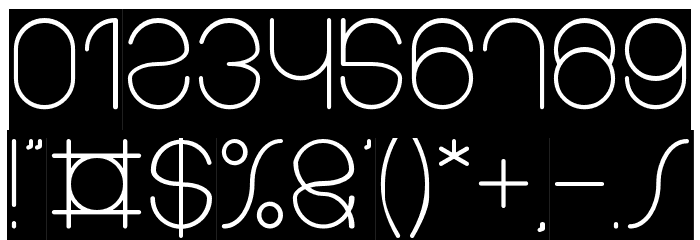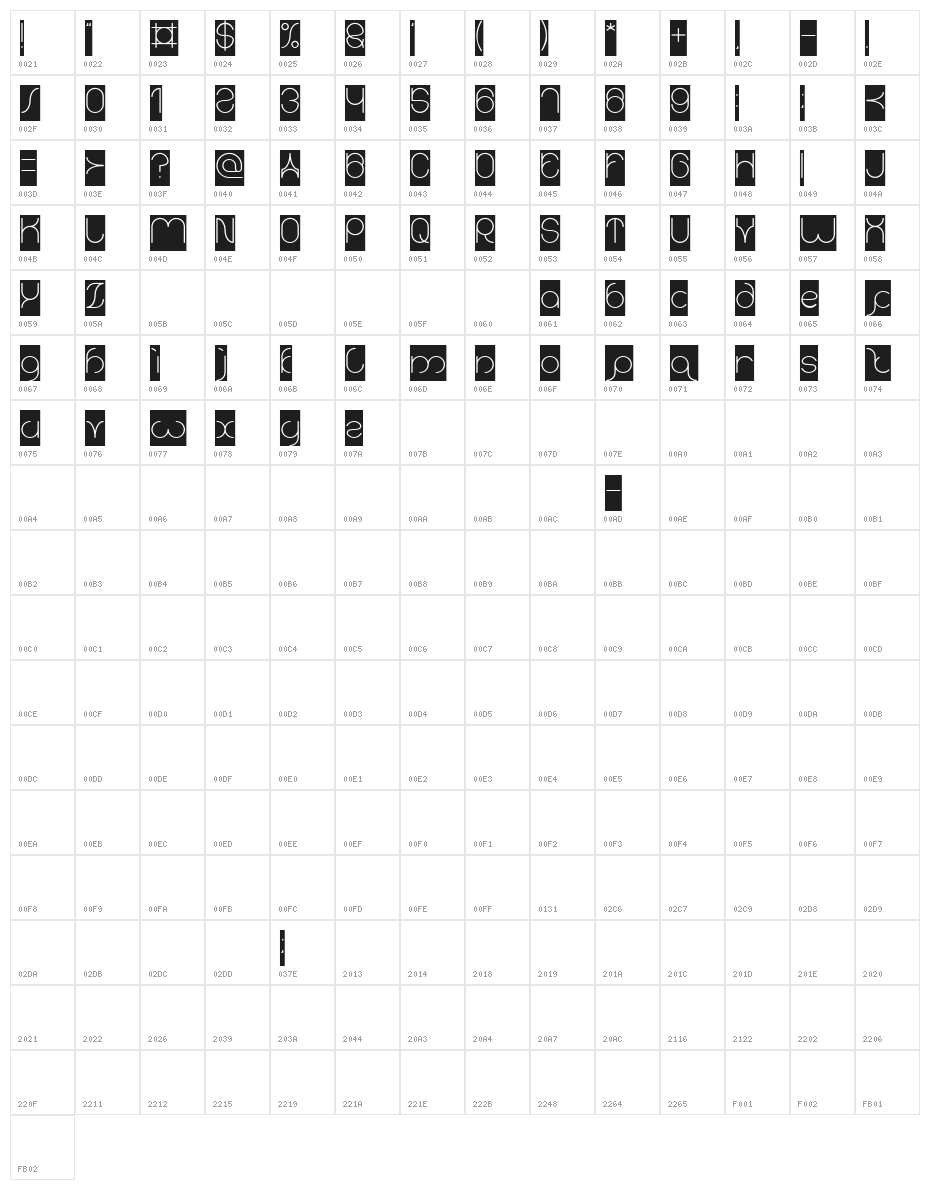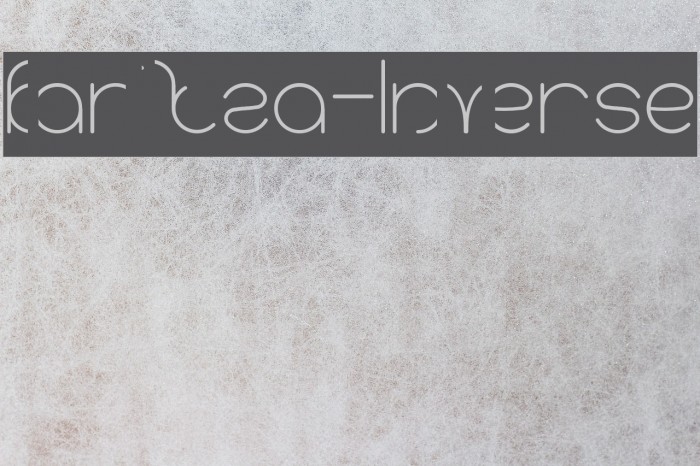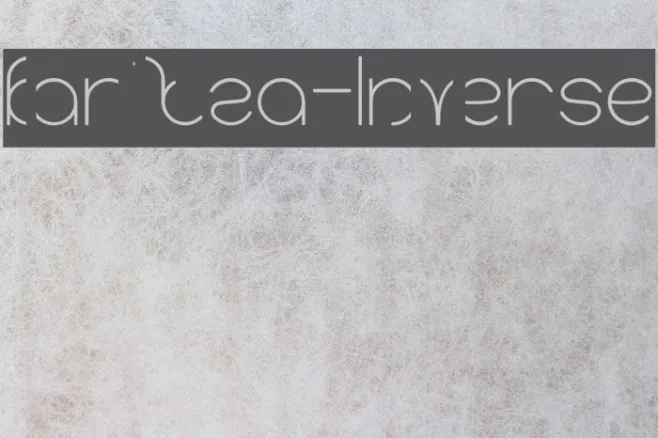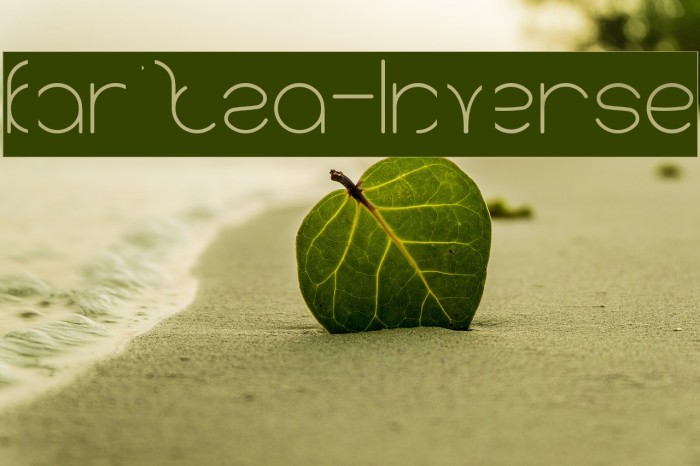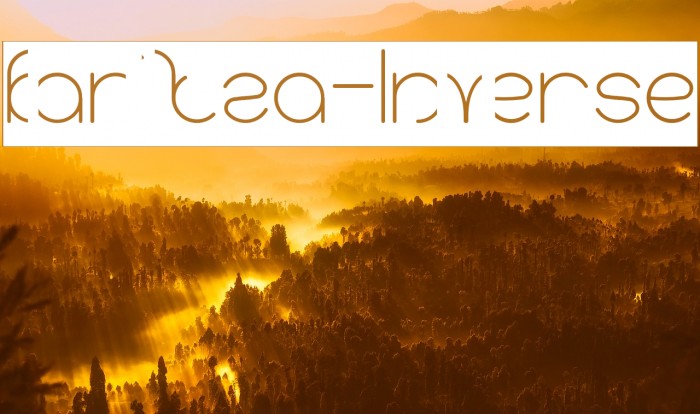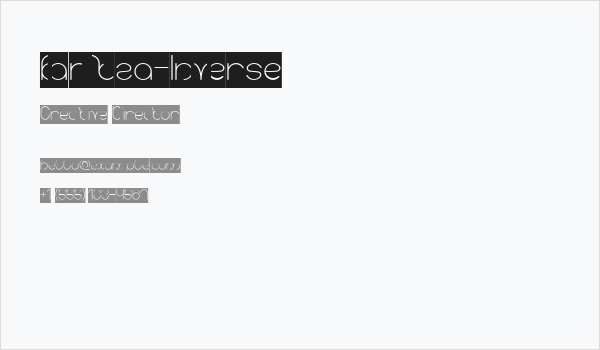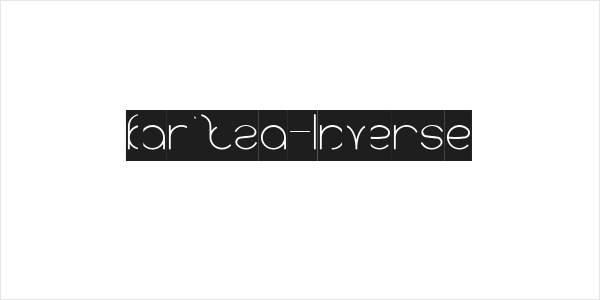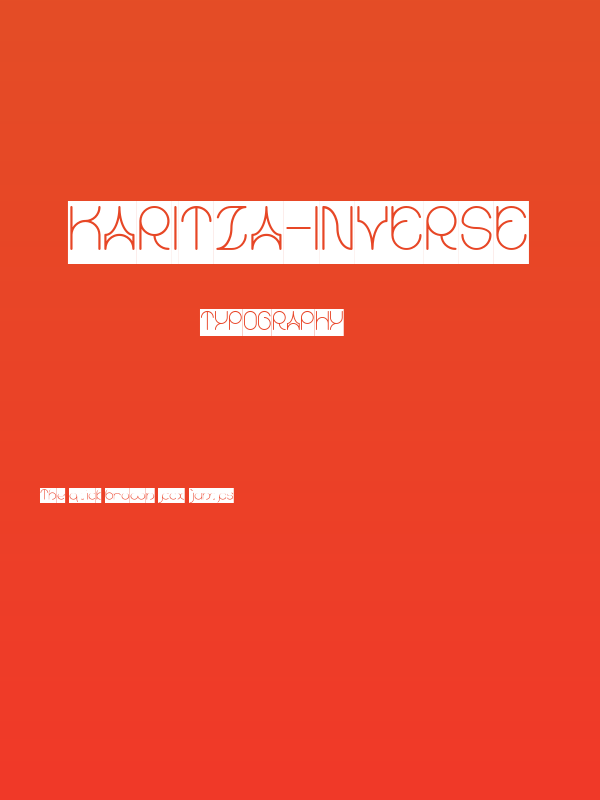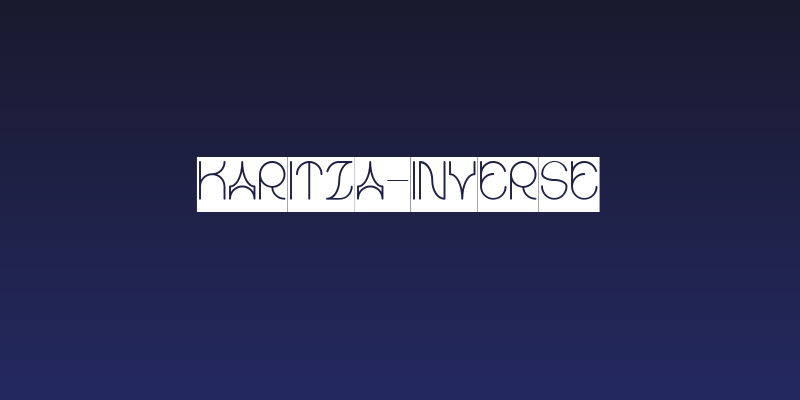
karitza-Inverse Font
karitza-Inverse Description
This font features a unique and modern design with a futuristic flair. The characters are composed of thin, continuous lines that form elegant curves and loops, creating a sense of fluidity and motion. The uppercase and lowercase letters maintain a consistent style, with some letters featuring distinctive, artistic flourishes. The numbers and special characters are crafted with the same attention to detail, ensuring a cohesive look across all glyphs. This font's sleek and stylish appearance makes it ideal for projects that require a contemporary and innovative touch.
| Use Case | Logos, Headlines, Branding |
| Proposed Projects | Ideal for branding, logos, tech-related projects, modern art displays, and innovative product packaging. |